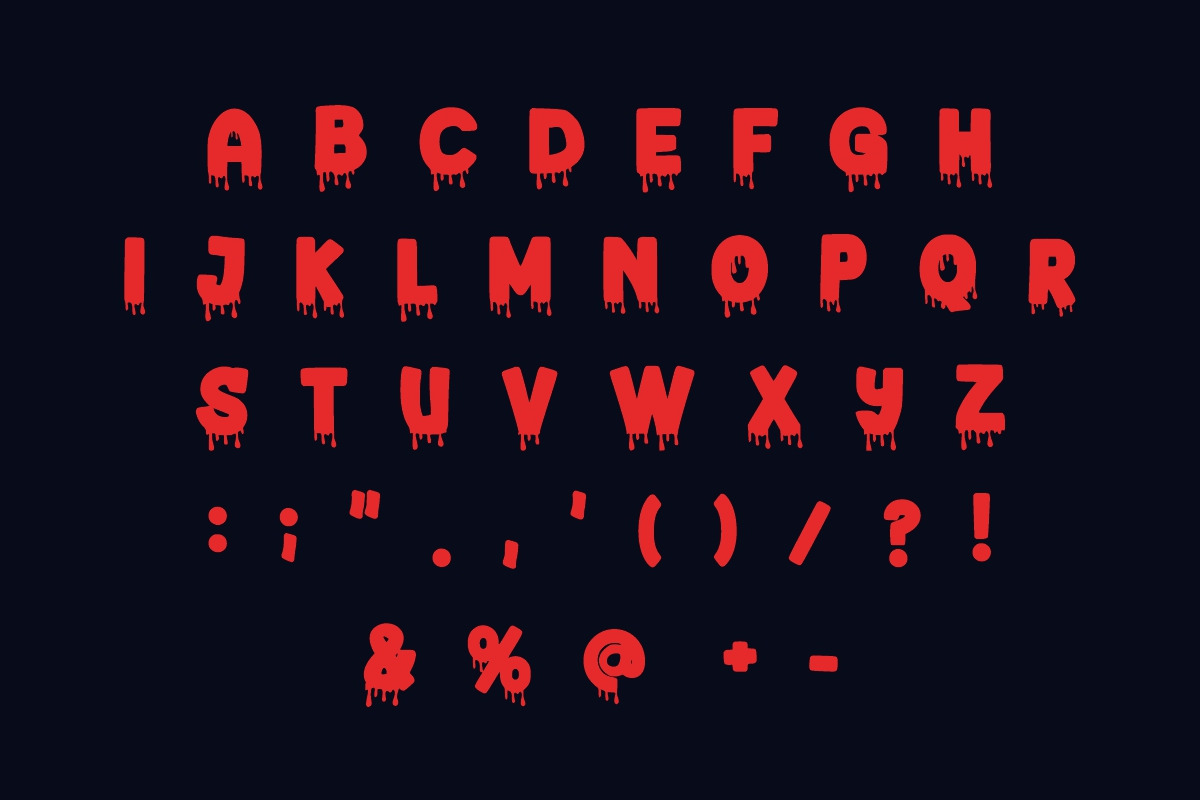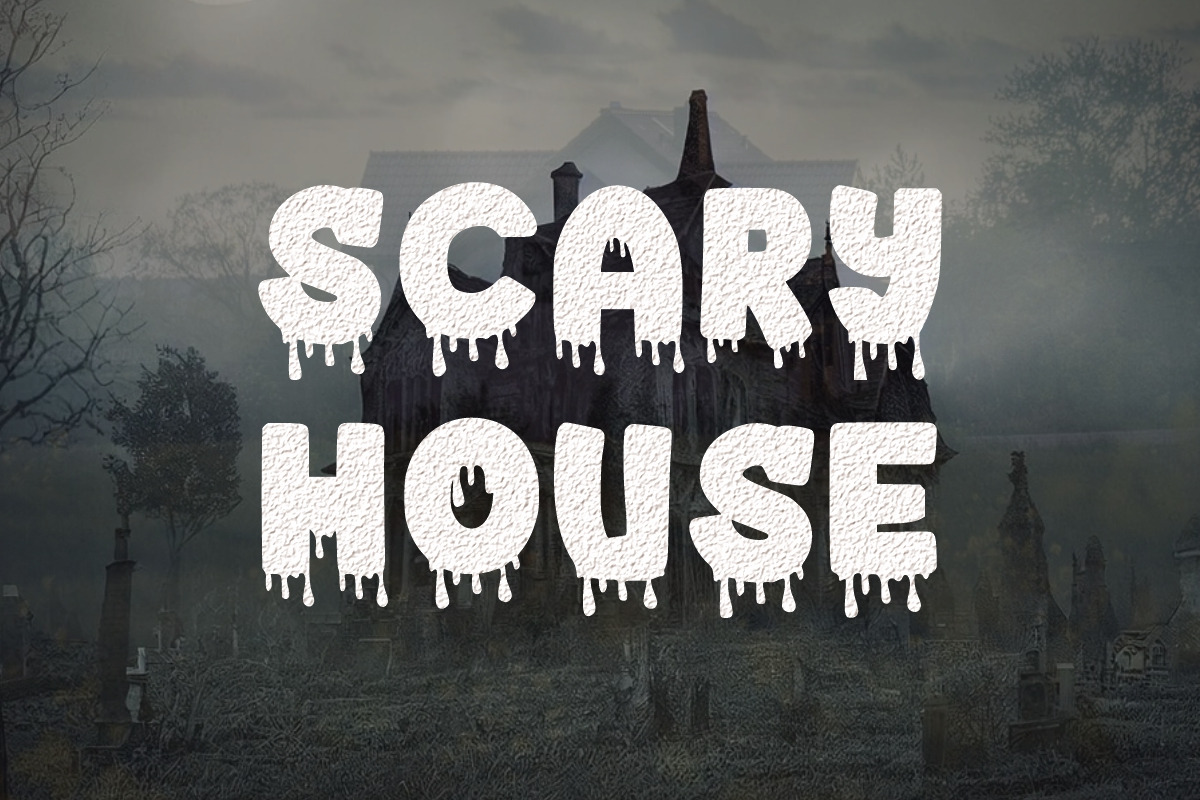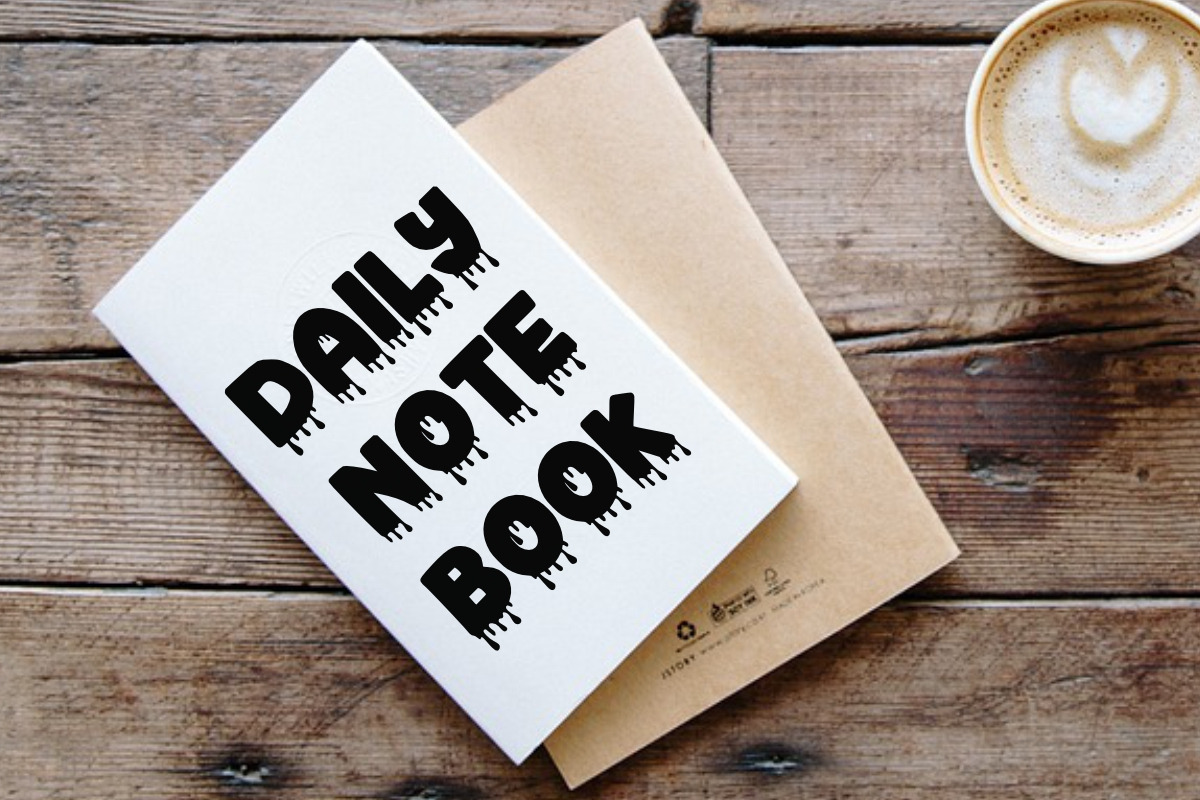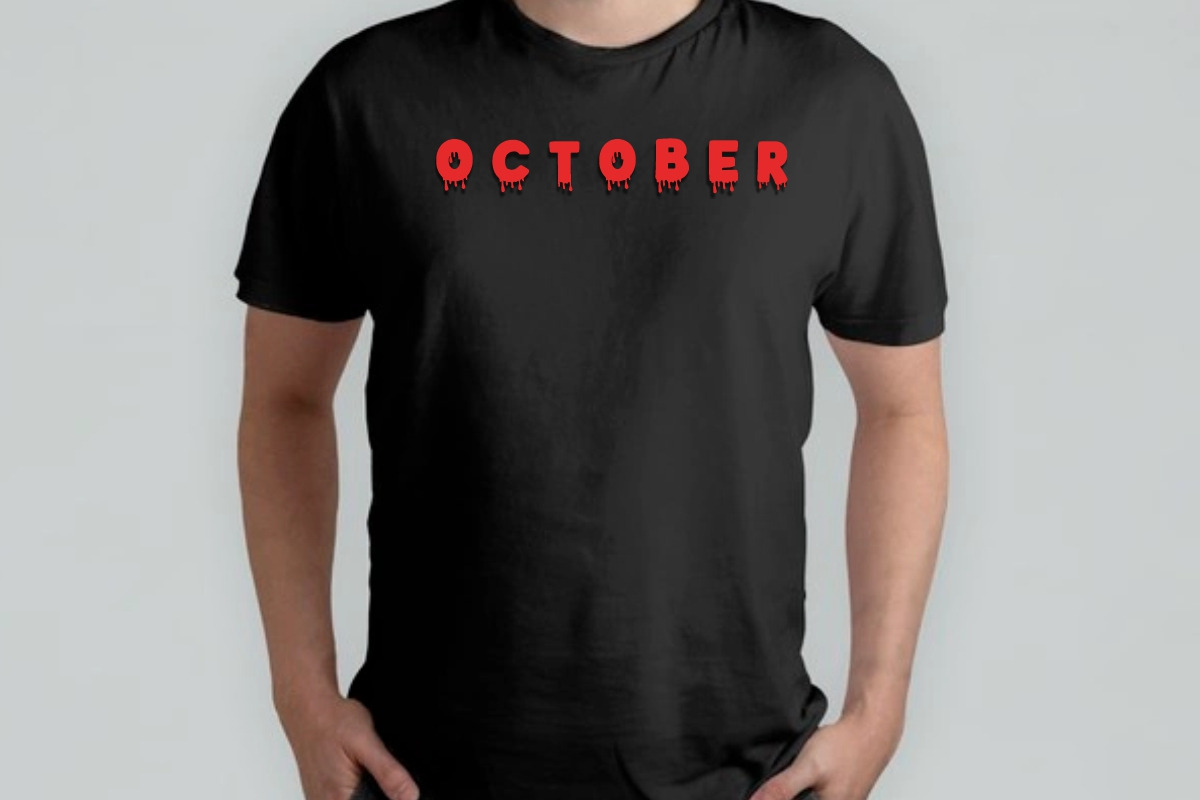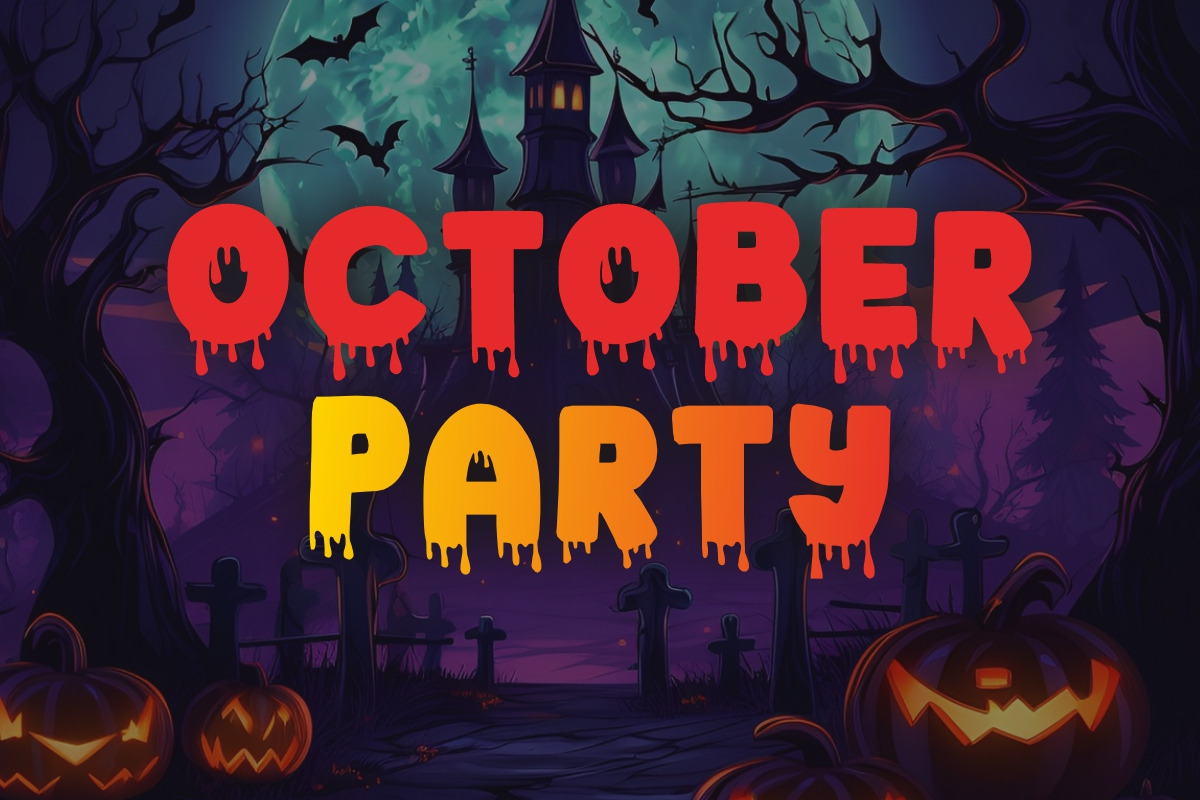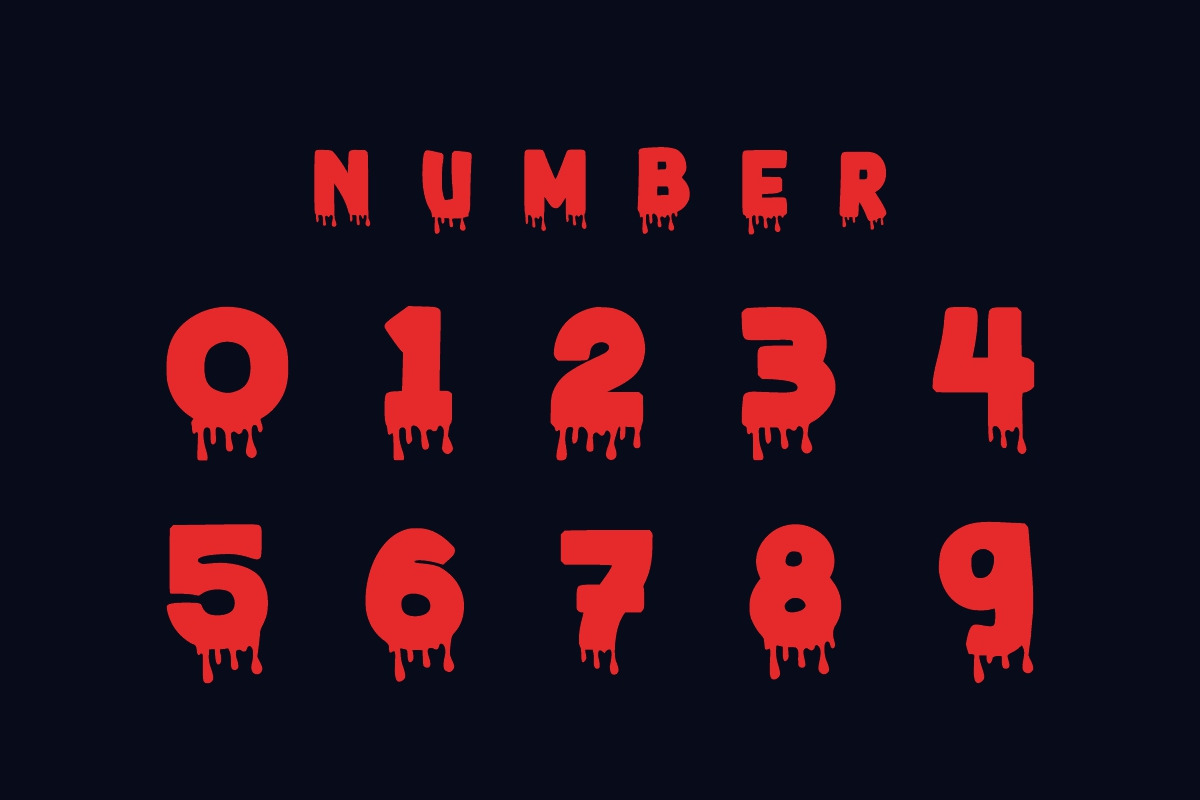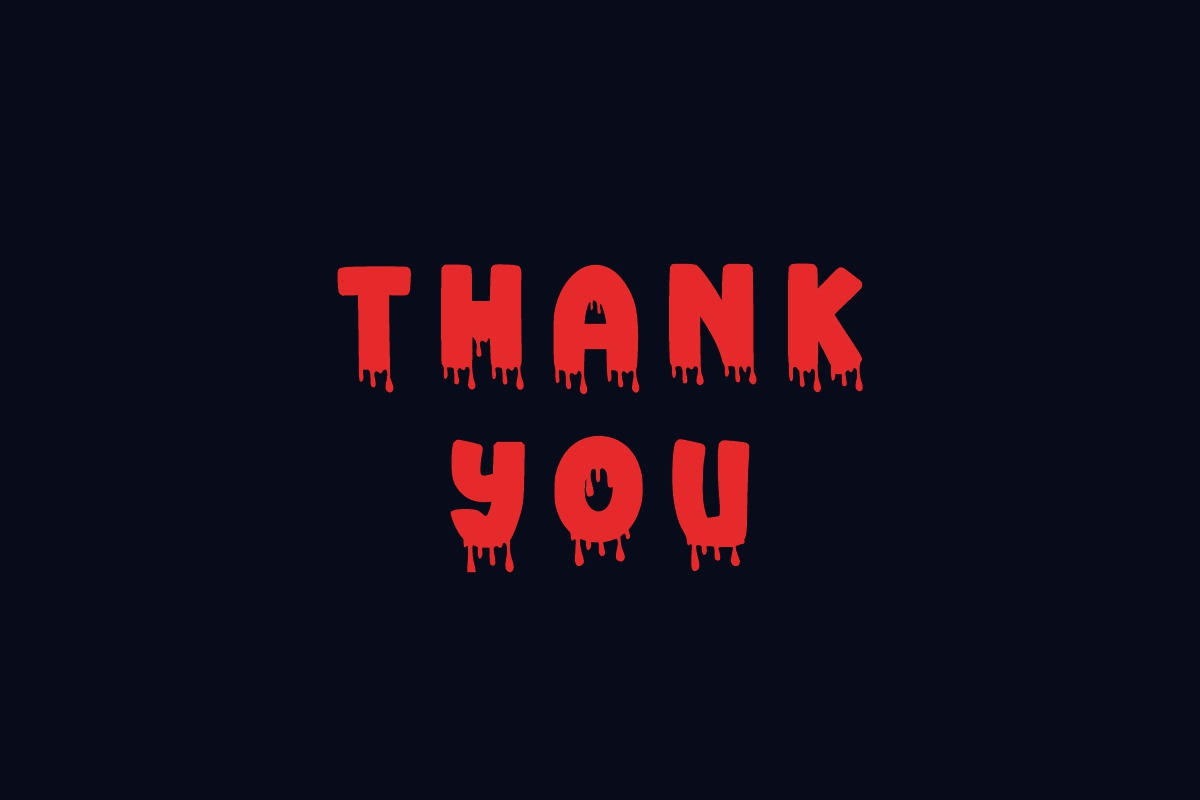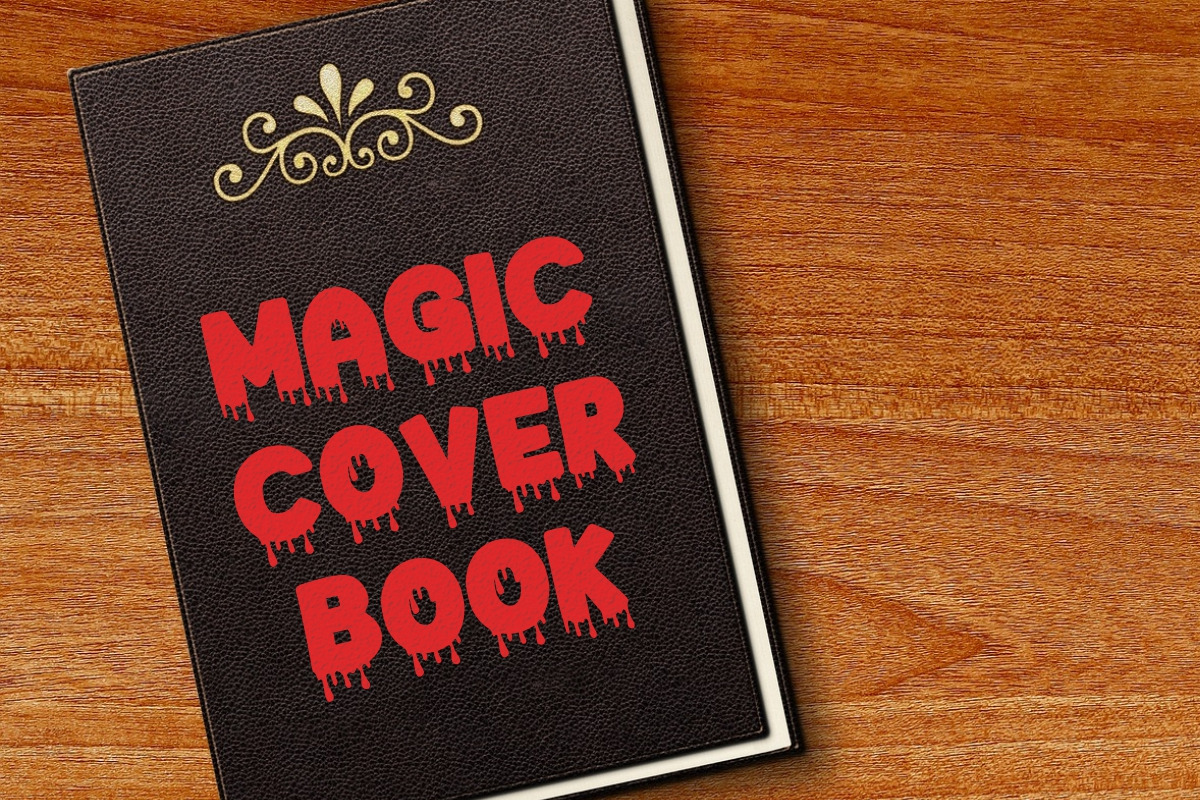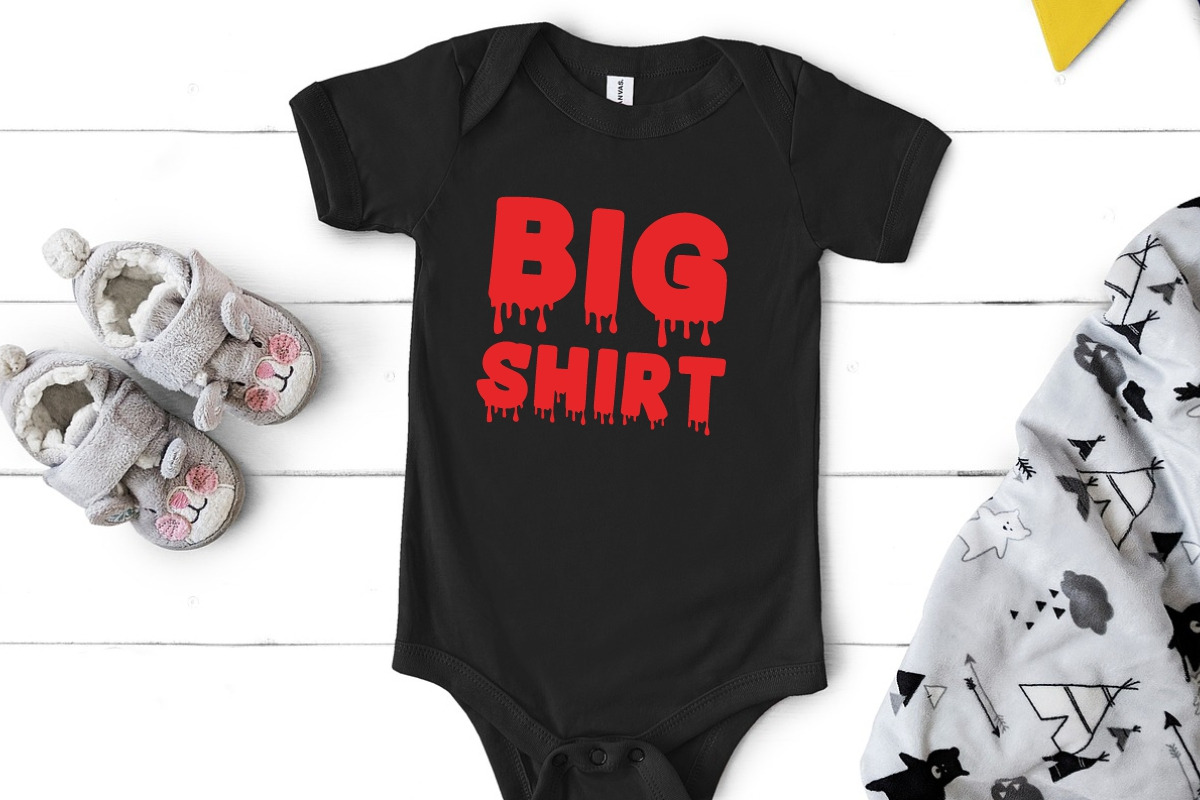
Halloween Wizard
Halloween Wizard is a fun and scary display font. You can use it for various projects such as blog posts, logos, branding, ads, invitations, greeting cards, planners, photo albums, decorations, or anything related to Halloween or horror.